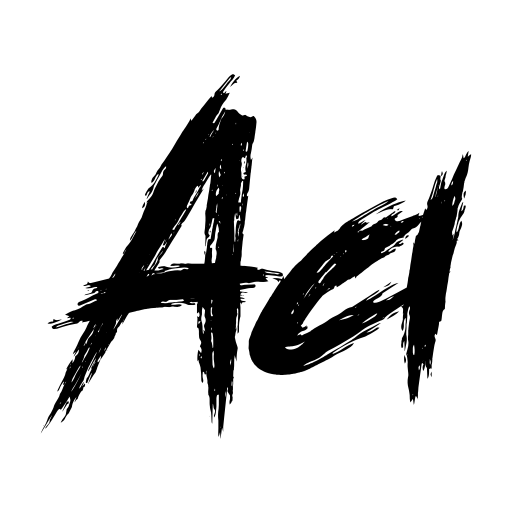
Bloodseeker Demo is a bold, highly expressive brush script font with an intense, jagged style that feels raw and energetic. Its rough, hand-painted strokes create a gritty, rebellious vibe perfect for designs that seek to convey excitement or edginess, making it ideal for posters, horror themes, or dynamic branding that demands attention. This font works best in impactful headlines or logos where its wild personality can truly shine.
BLOODSEEKER DEMO Font
About BLOODSEEKER DEMO Font